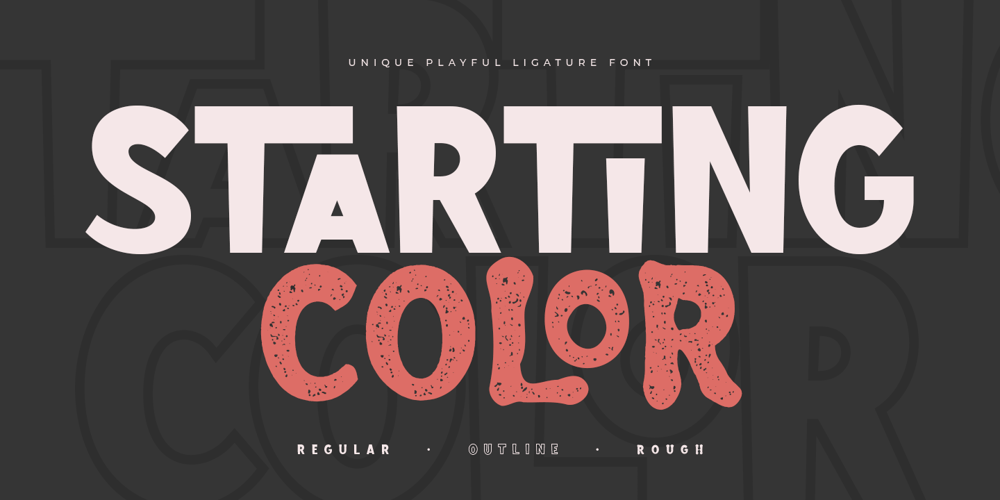
Starting Color Font Family was designed by Zamroni Hamzah and published by Sensatype Studio. Starting Color contains 3 styles and family package options. Starting Color is A Modern Playful and Unique Ligature Font. This font specially crafted for your design projects such as urban poster, unique design, modern for t-shirt designs, product packaging, merchandise, and so many more with easy to use but unique results are so playful.Enjoy to Design any your needs with unique, urban, and playful feel.What will you get: Starting Color Font (Regular, Outline, Rough) All Characters (from A to Z) Numbers and Punctuation Works on PC & Mac Simple installations PUA Encoded Thanks and have a wonderful day. 🙂